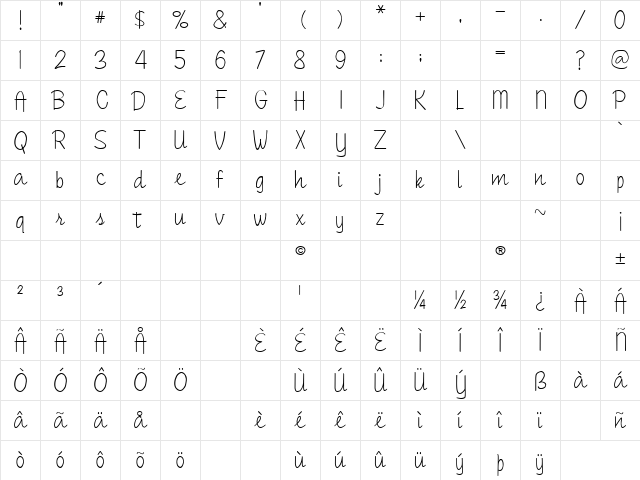
2Bees Champagne Regular
Design Context for 2Bees Champagne
2Bees Champagne is a composed and adaptable typeface that performs quietly and consistently across a wide range of design contexts.
Pro Tip: Use 2Bees Champagne in both headline and body roles to test its range before committing to a single application.